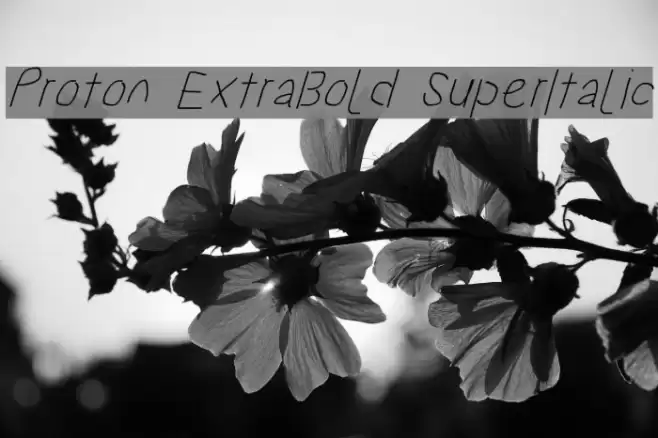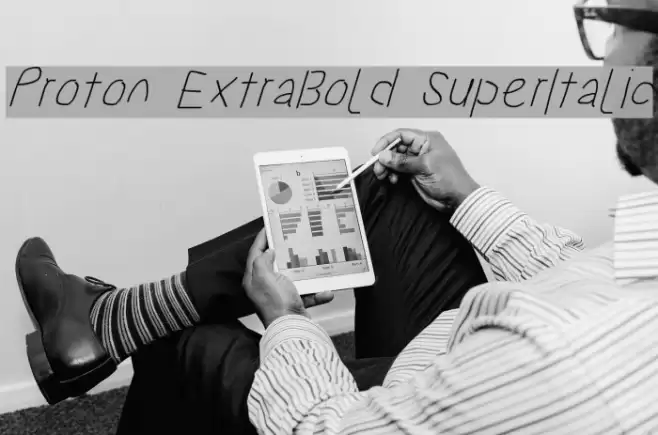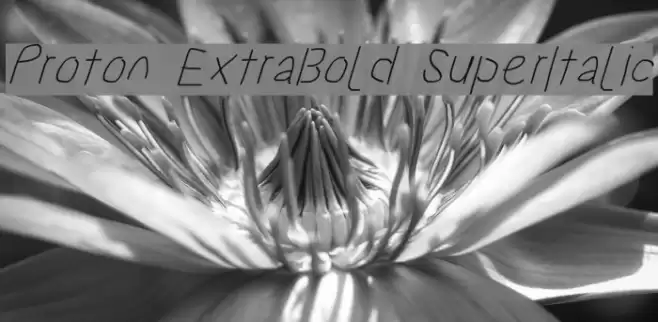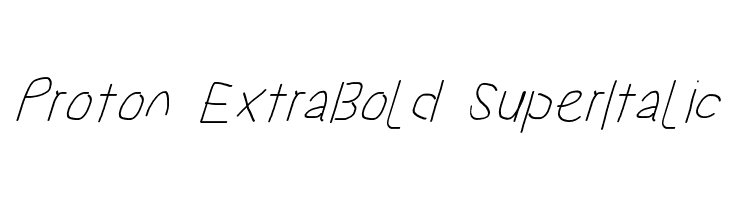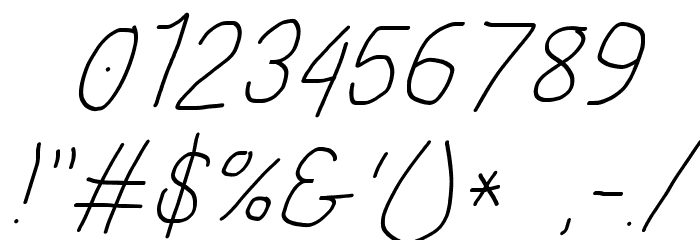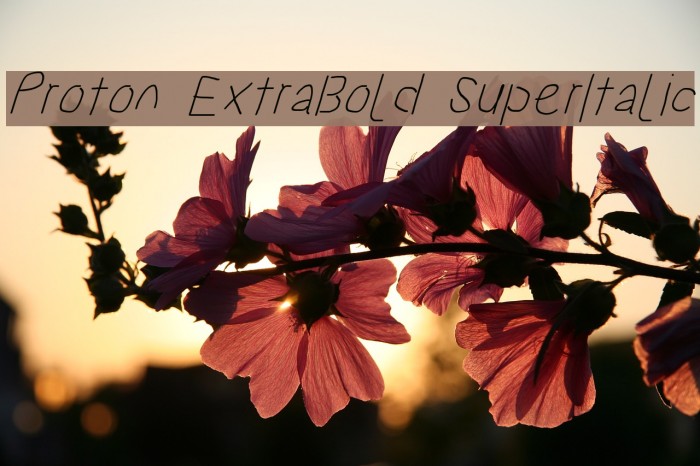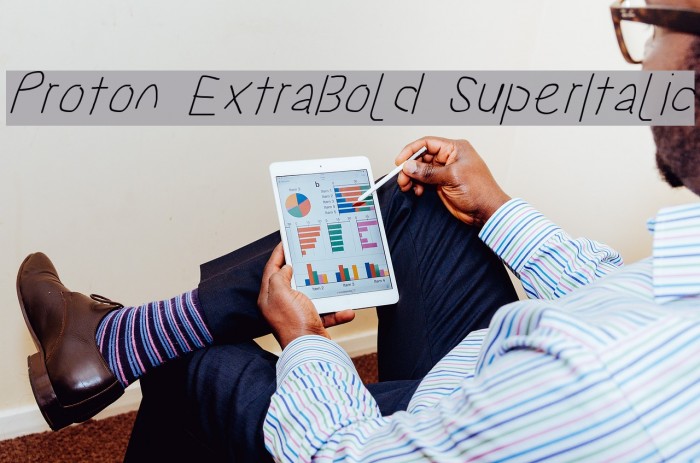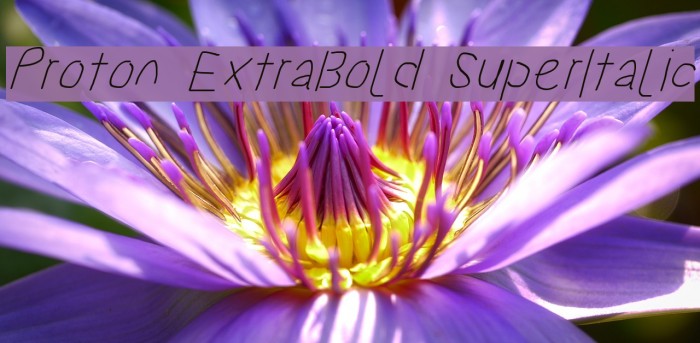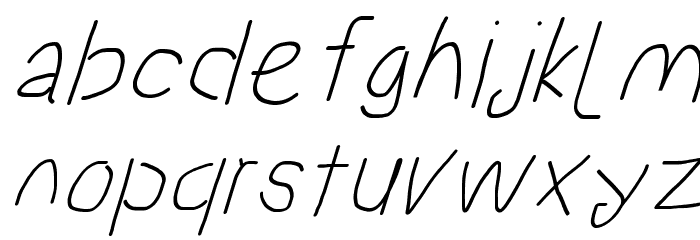
Proton ExtraBold SuperItalic Font
Proton ExtraBold SuperItalic Description
This font features a dynamic and energetic style with a pronounced slant, giving it a sense of motion and fluidity. The characters are crafted with a consistent stroke width, creating a uniform appearance across both uppercase and lowercase letters. The numerals and special characters maintain this cohesive design, ensuring readability and aesthetic appeal. The font's overall look is modern and slightly playful, making it suitable for projects that require a touch of personality without sacrificing clarity.
A dynamic, slanted font with consistent stroke width and a modern, playful style from Uncategorized fonts.